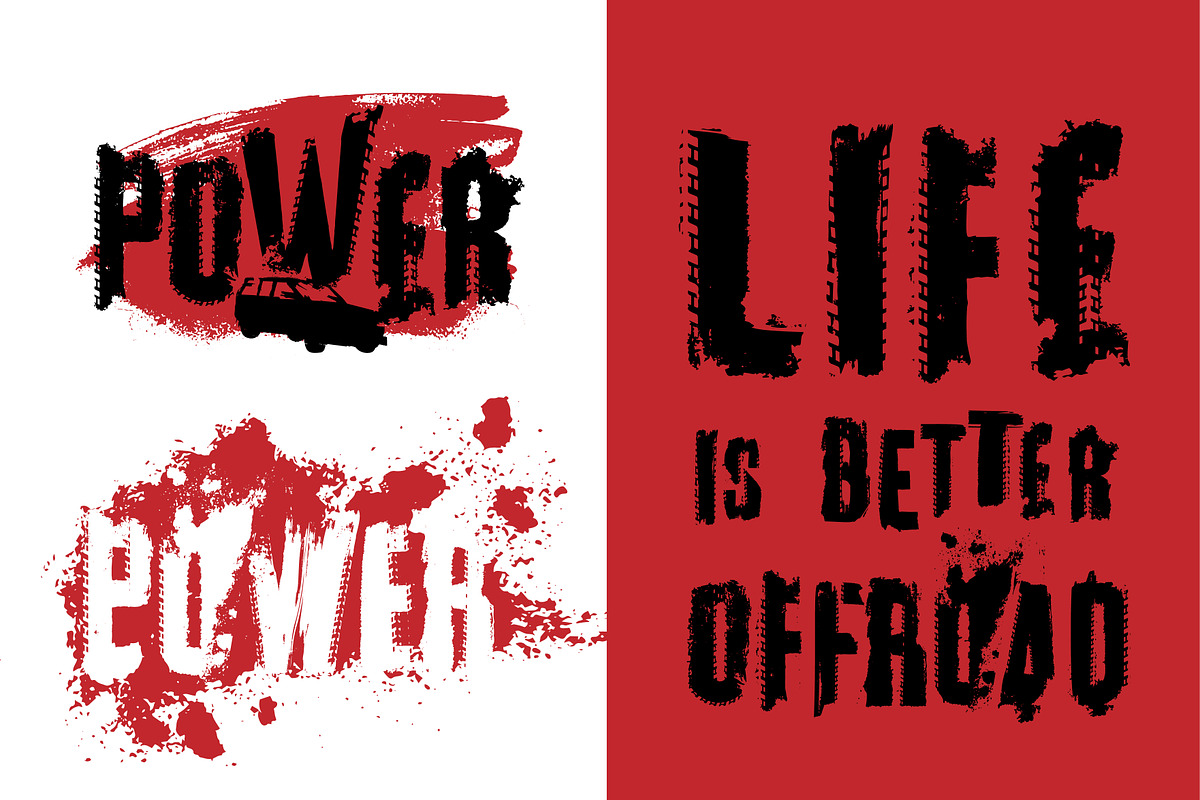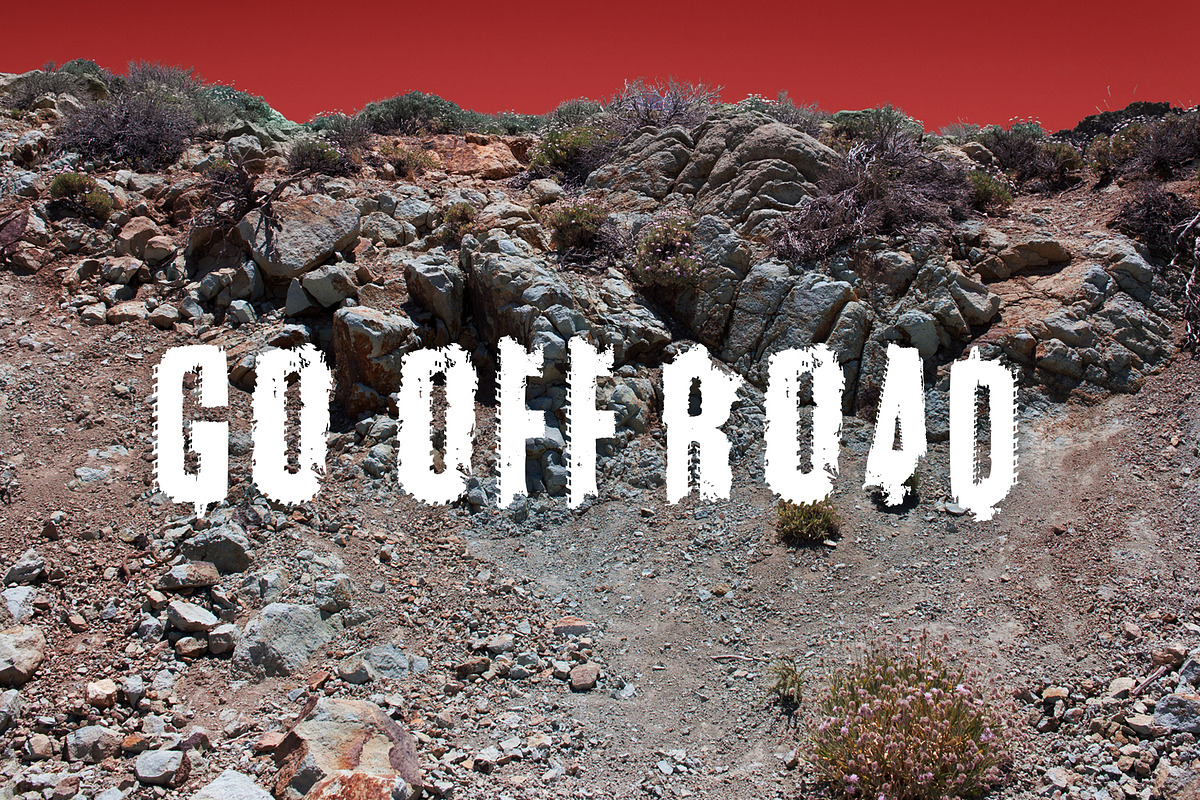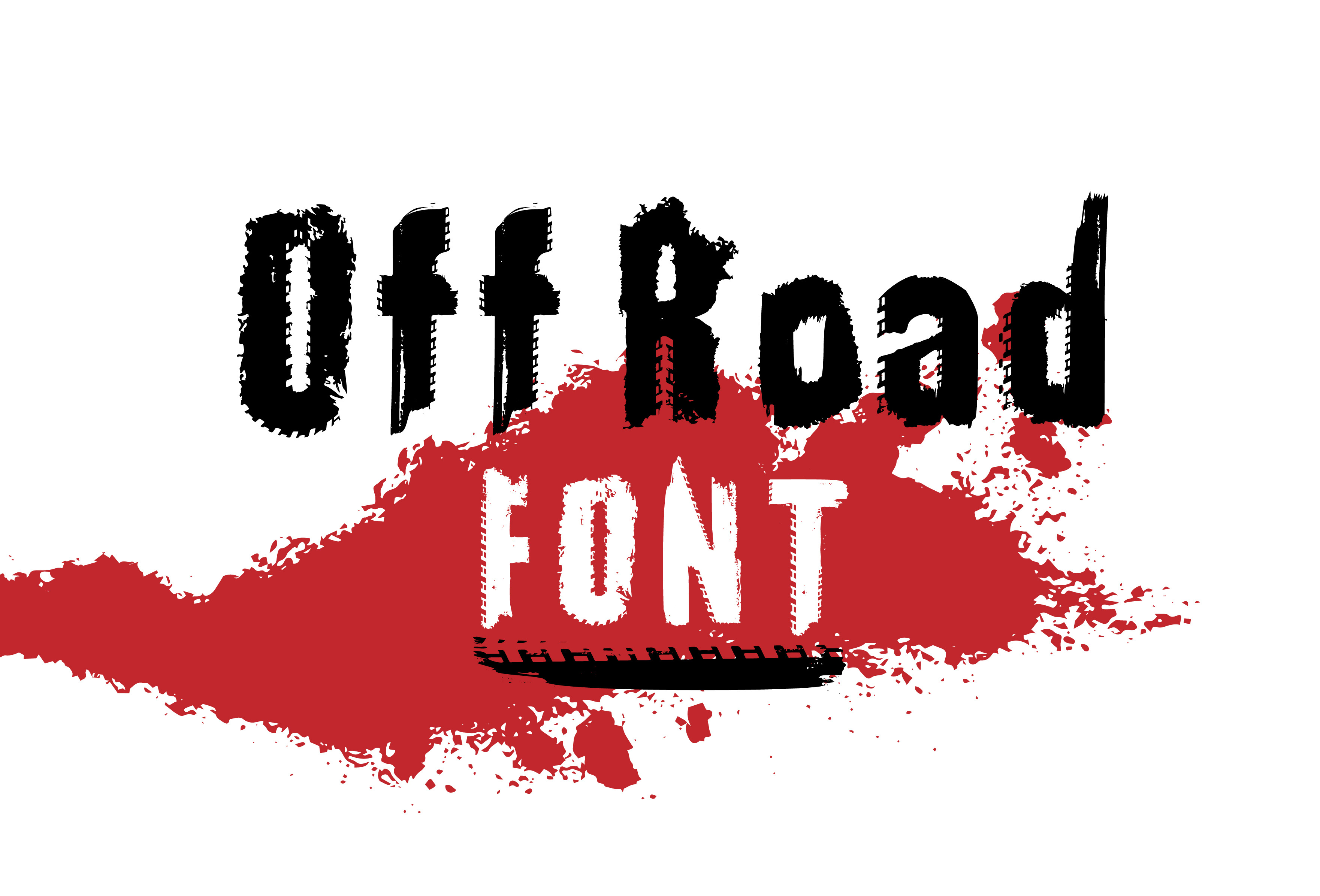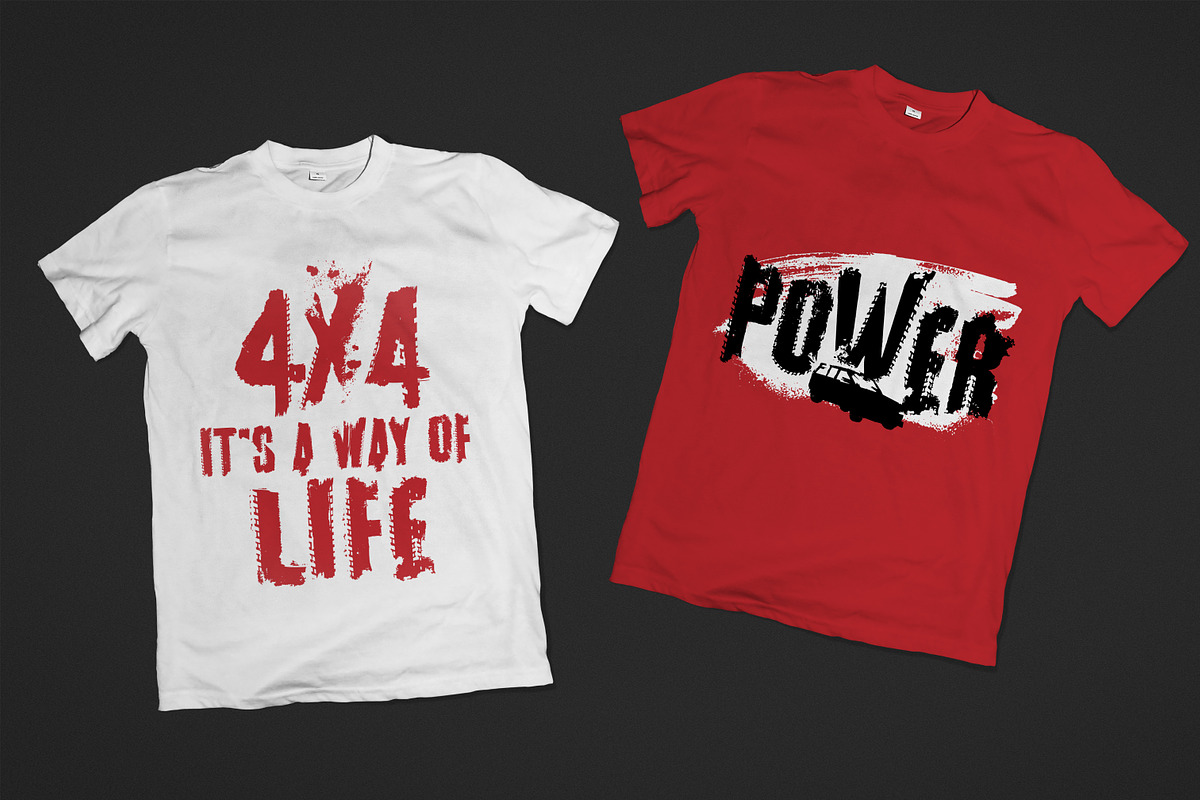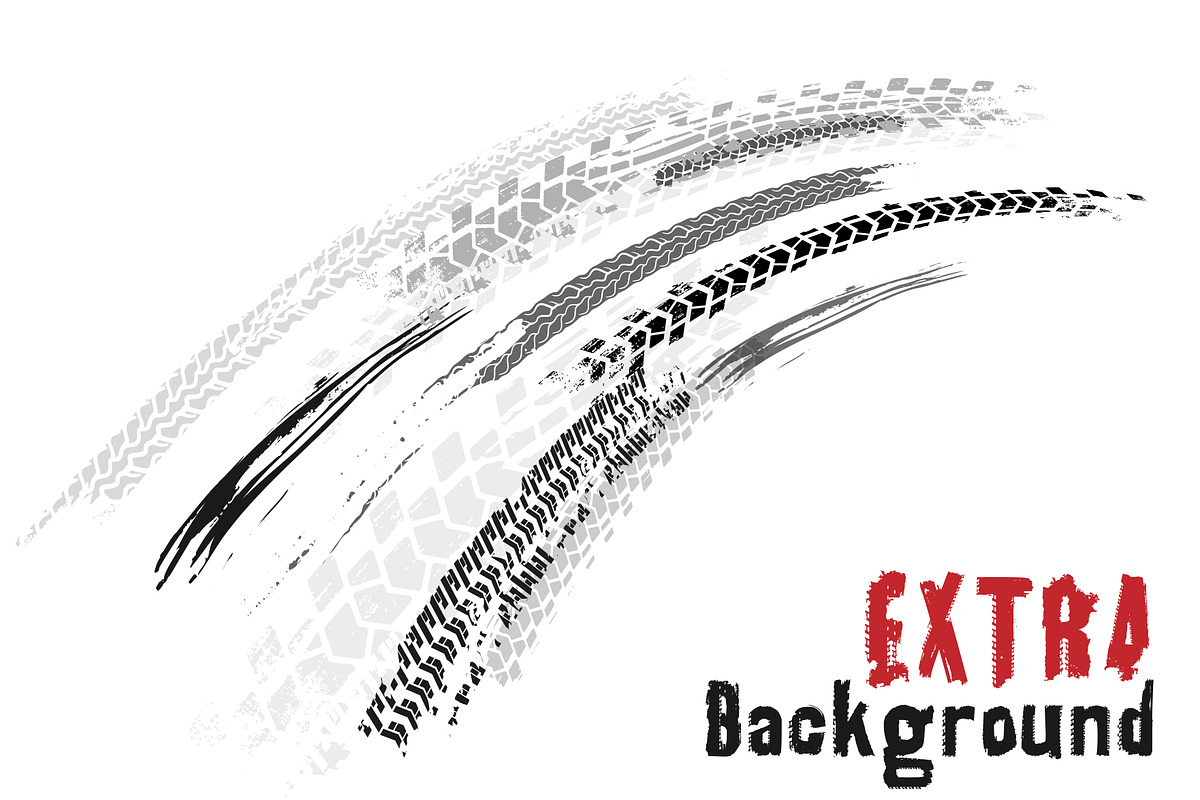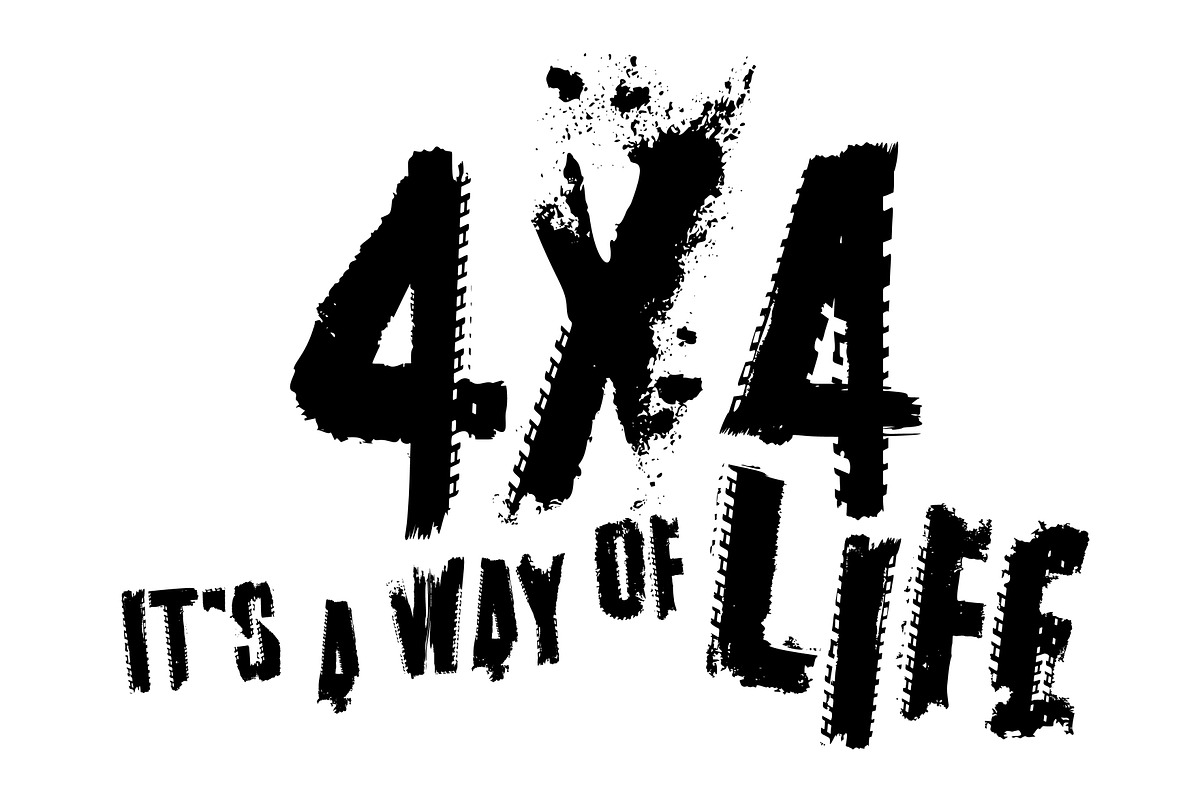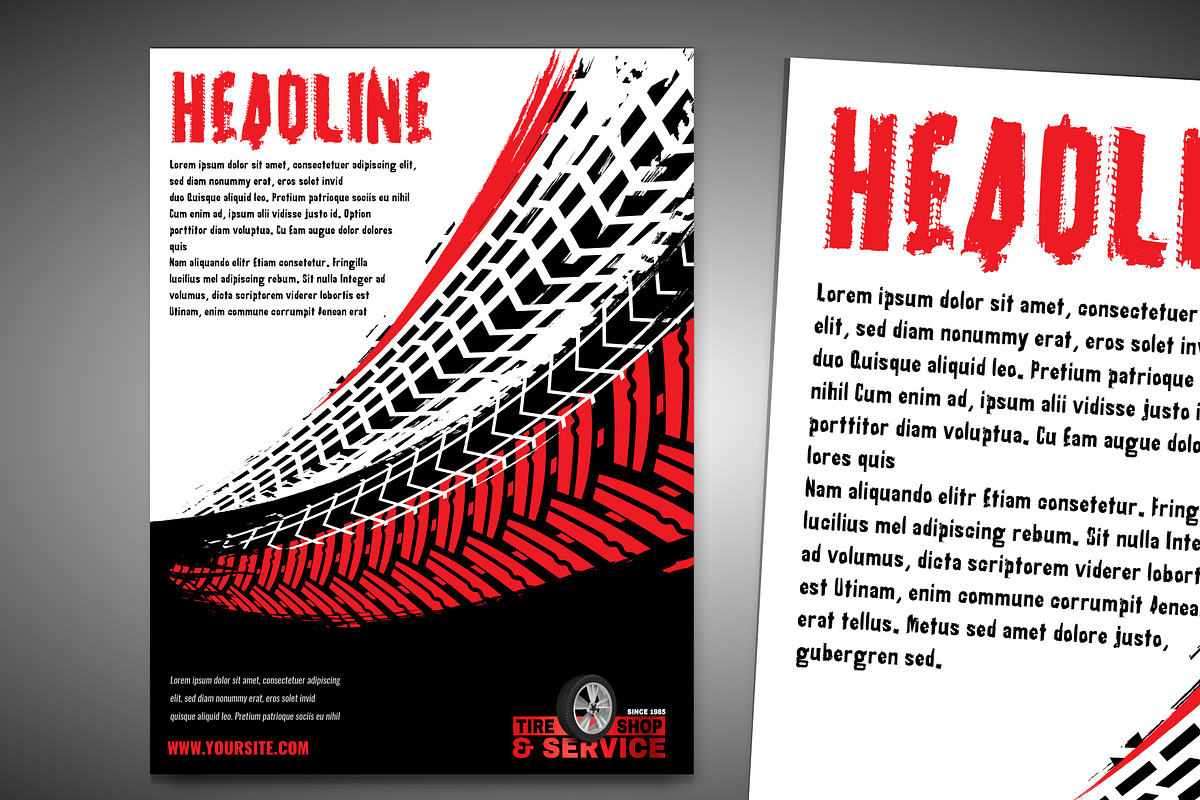
Off Road Font
I'm happy to introduce my OFF ROAD FONT! It's super useful for creating materials for off-road rallies and other extreme championships. It could also be used in different car advertising campaigns, such as: 4x4 or tires. You can use it for making special event logos, such as drifting shows or off-road bike races. This unique font is perfect for posters, T-shirt prints and other promo designs.
OFF ROAD FONT is a display font, including not only uppercase letters and numbers, but also lowercase letters and most common glyphs. It's best used for eye-catching headlines, typography and creative lettering.